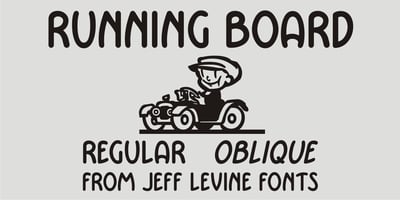
Running Board JNL Font Family was designed by Jeff Levine and published by Jeff Levine. Running Board JNL contains 2 styles and family package options. During the early years of the 20th Century, America’s fascination with automobiles was just beginning. The cover for a 1916 piece of sheet music for the comedy song “On the Old Back Seat of the Henry Ford” had the title hand lettered by a round nib pen in an Art Nouveau style. This is now available digitally as Running Board JNL.